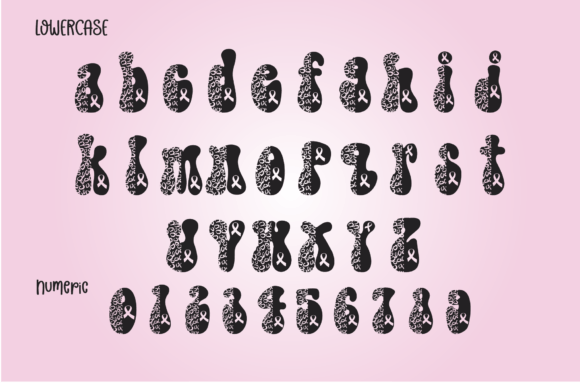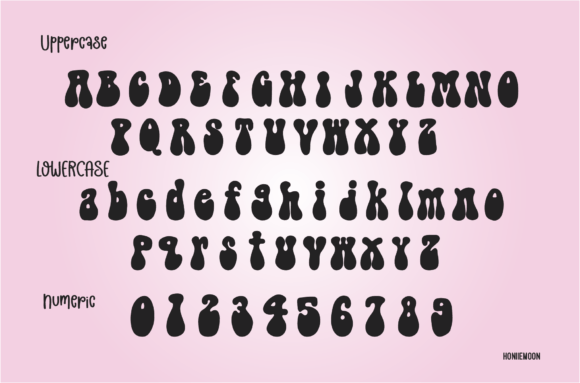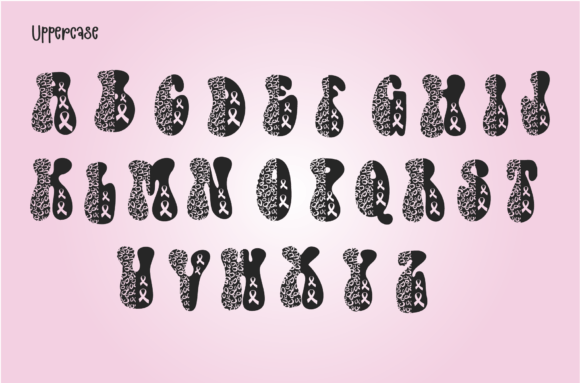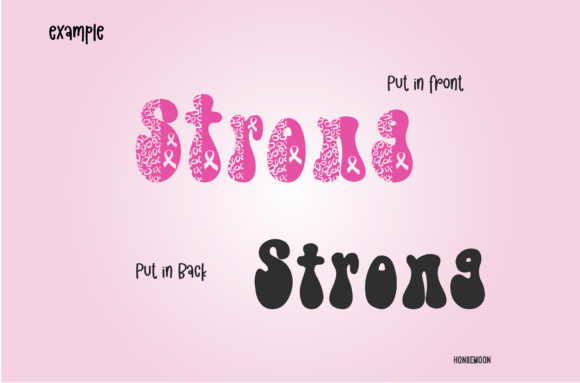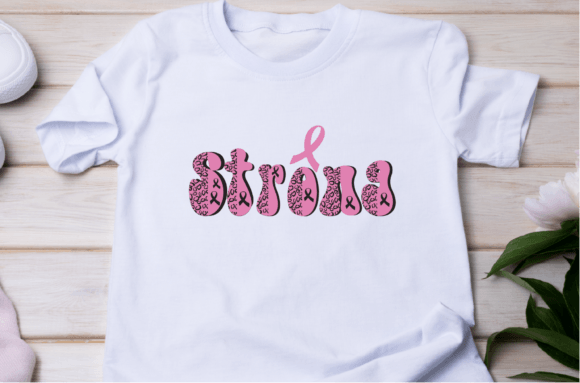
Introduction to Leopard Cancer Font
Leopard Cancer is a cool and unique display font.
With its strong and assertive characters, this font is suitable for all Cancer awareness projects .
Key Features of Leopard Cancer Font